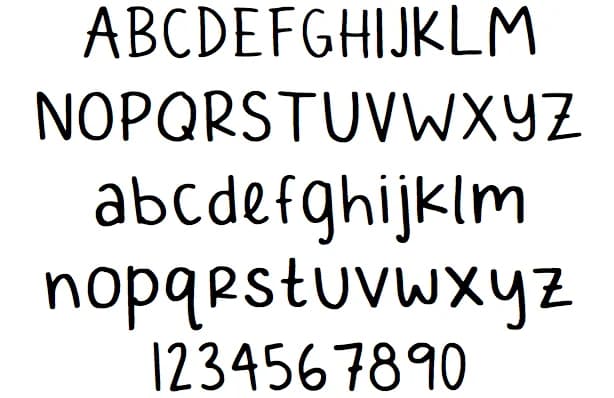
About Skinny Script Font
Skinny Script Font by lf_designs is a playful, elongated script that brings a youthful energy to creative projects of every kind. With its distinctive stretched letterforms and lighthearted aesthetic, this typeface captures the carefree spirit of hand-drawn lettering while maintaining strong readability across different applications and sizes.
The extended character proportions work beautifully for children's book layouts, birthday party invitations, and whimsical greeting card designs that demand personality and charm. Whether you're designing storybook page headers, creating playful packaging for kids' product lines, crafting hand-drawn style branding for youth-focused small businesses, or developing social media graphics with character, this script's open spacing and delicate weight deliver an approachable, friendly visual presence. The font's airy construction proves particularly effective in social media applications where distinctive character matters and every pixel counts for brand recognition.
Skinny Script Font bridges the gap between digital and print design beautifully, making it an excellent choice for web design projects, physical packaging mockups, DIY craft initiatives, and personal brand development. Its balanced playfulness works equally well for creating custom greeting cards, designing handmade-style product labels, or adding warmth to small business stationery. Whether you're a designer seeking that perfect hand-lettered touch or a creative entrepreneur building a distinctive visual identity, Skinny Script Font offers the charm and authenticity you're looking for. Find Skinny Script Font on Creative Fabrica and start adding playful character to your work.
Skinny Script Font is a script font that shines as a display or heading face. Pair it with a clean sans-serif or serif font for body text β the contrast creates a clear hierarchy while the two styles stay balanced and easy to read.
Skinny Script Font